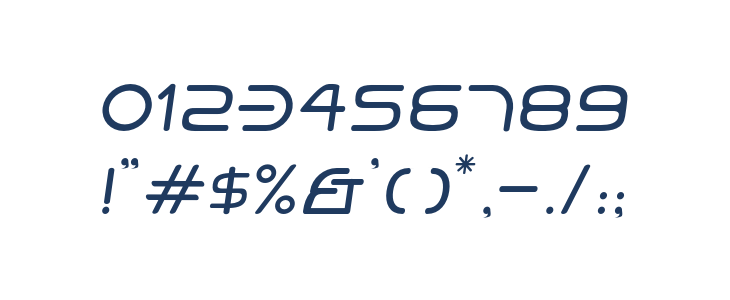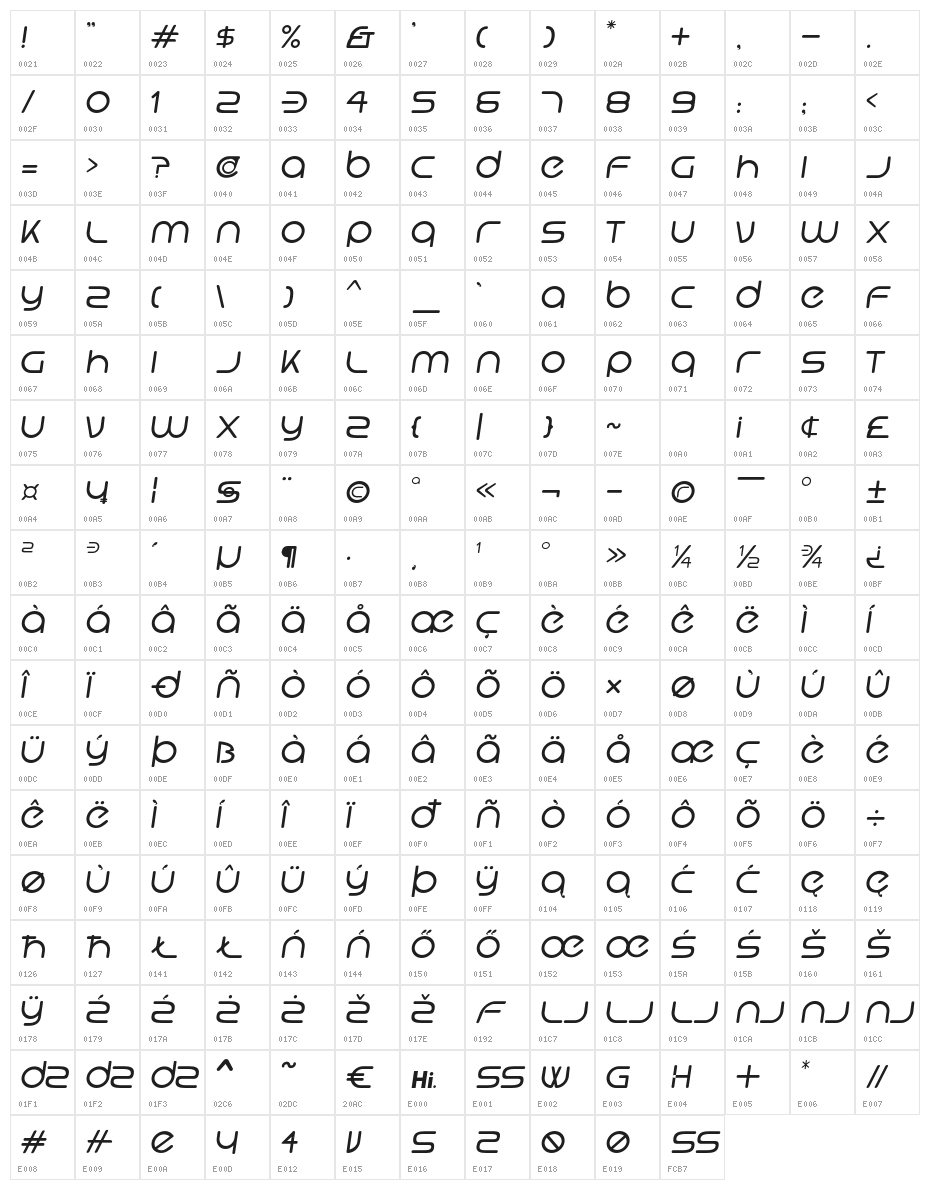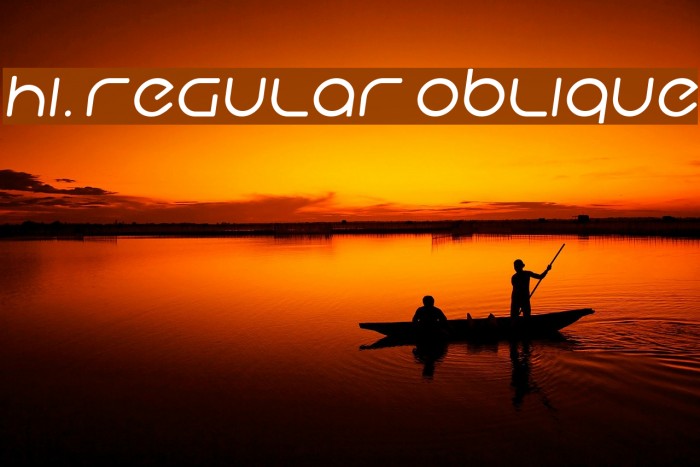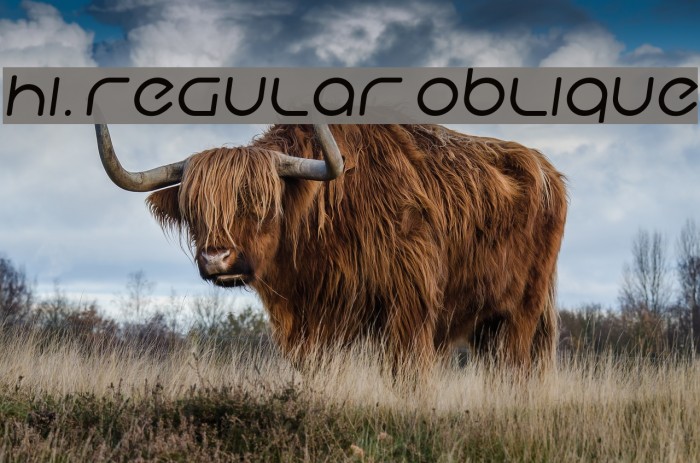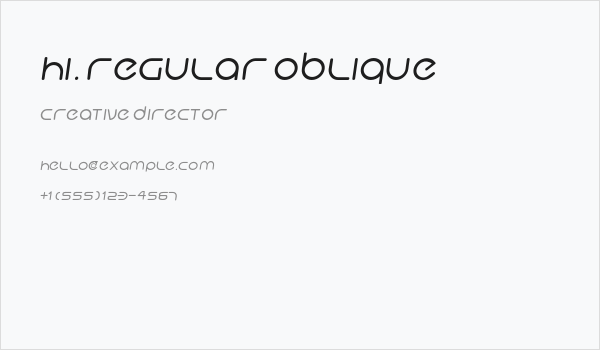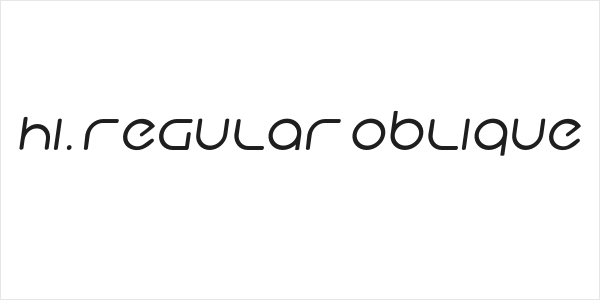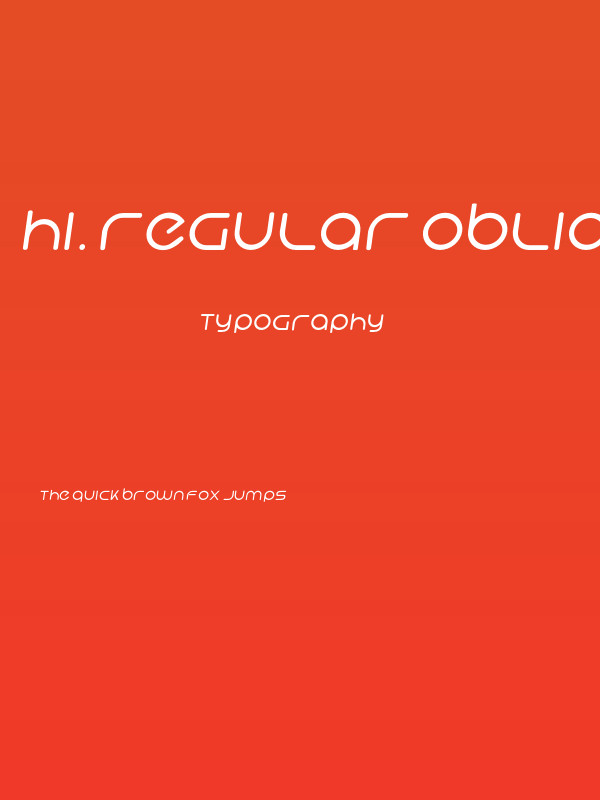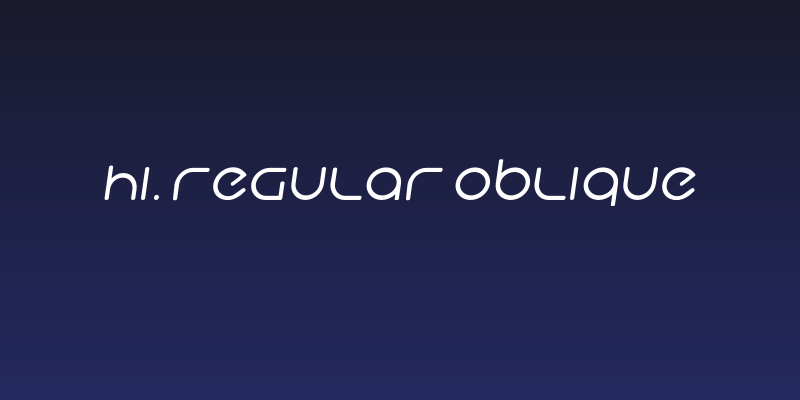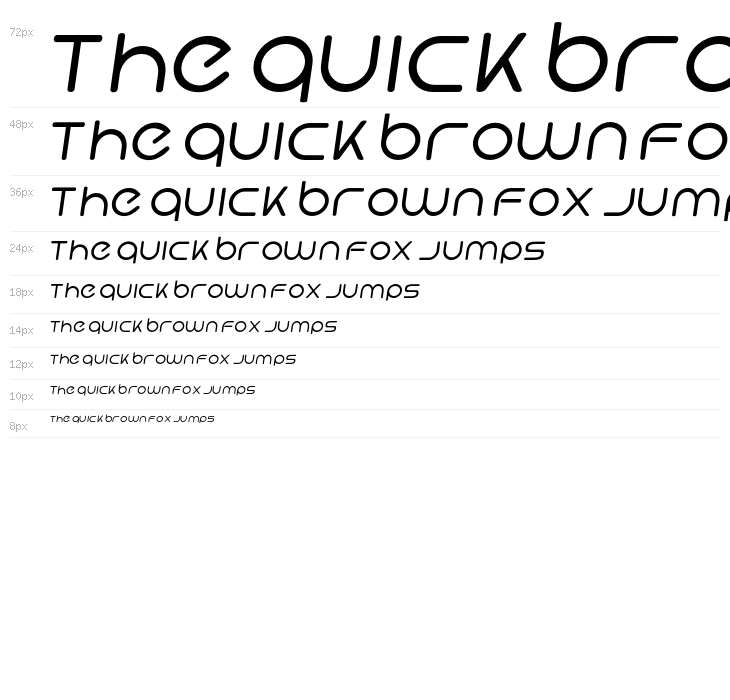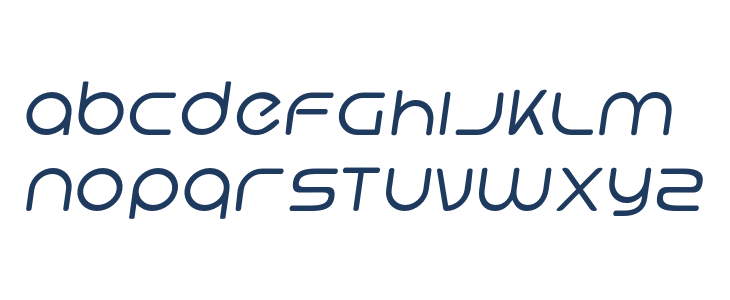
Hi. Regular Oblique Font
Hi. Regular Oblique Description
This font features a sleek, modern design with an oblique orientation, giving it a dynamic and forward-leaning appearance. The characters are rounded with smooth curves, providing a futuristic and clean aesthetic. The uniform stroke width across all characters contributes to a consistent and harmonious look. The uppercase and lowercase letters maintain a similar style, ensuring readability and visual coherence. The numerals and special characters are designed to match the overall style, making them easily recognizable and functional. This font's design is well-suited for digital interfaces and modern branding projects.
Use CaseHeadlines, Logos, Digital Interfaces
Proposed ProjectsIdeal for digital interfaces, modern branding, technology-related projects, and futuristic designs.